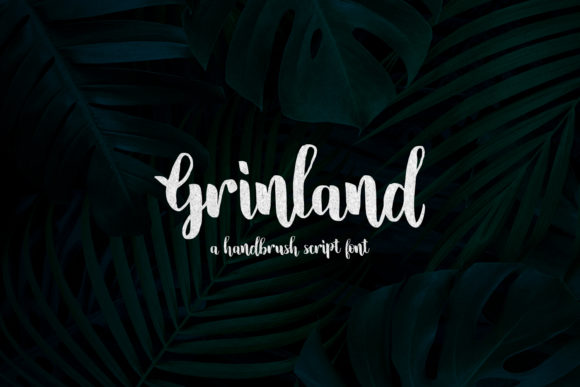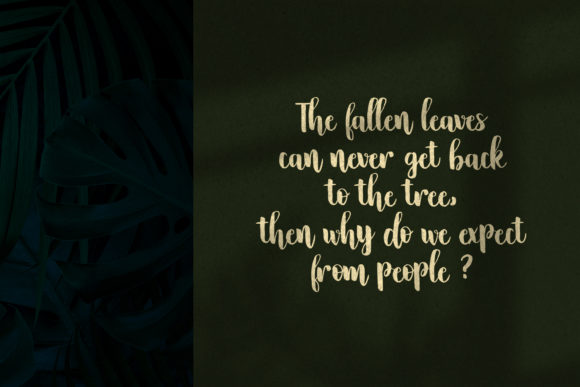
Grinland is a lovely brushed script font that draws inspiration from modern calligraphy. With its neat and genuine style, this font is well-suited for nature-related designs and outdoor projects.
The charm of Grinland lies in its flowing brush strokes and natural feel. The letters are carefully crafted to emulate the organic and dynamic movements of hand-lettering, giving your designs a personal and artistic touch. The brush texture adds depth and character, enhancing the overall visual appeal.
This font is particularly well-suited for nature-themed designs. Whether you’re working on projects related to outdoor activities, environmental conservation, or natural products, Grinland can bring a sense of authenticity and harmony to your designs. Its casual and relaxed vibe captures the essence of nature and creates a warm and inviting atmosphere.
In addition to nature-related projects, Grinland can also be used for a variety of other design purposes. Its versatility allows it to be applied to invitations, greeting cards, posters, packaging, branding, and more. The modern calligraphy influence adds a touch of elegance and sophistication, making it suitable for a range of creative projects.
With Grinland, you have the freedom to explore different design possibilities. The font’s genuine and organic style allows you to create visually appealing compositions that evoke a sense of beauty and tranquility. Whether you’re designing for print or digital media, Grinland will add a delightful and charming element to your work.
Overall, Grinland is a lovely brushed script font that brings the elegance of modern calligraphy to your designs. Its neat and genuine style makes it perfect for nature-related projects and outdoor-themed designs. Let Grinland infuse your creations with a touch of authenticity and beauty, making them stand out and captivate your audience.